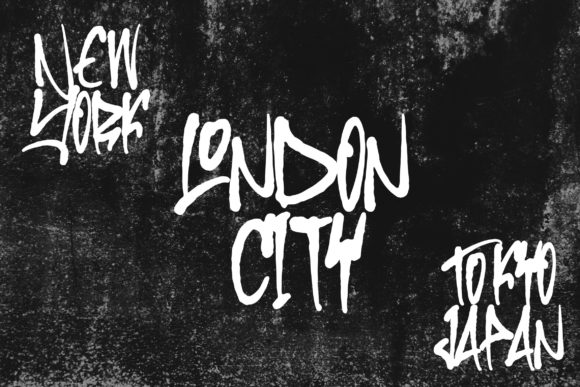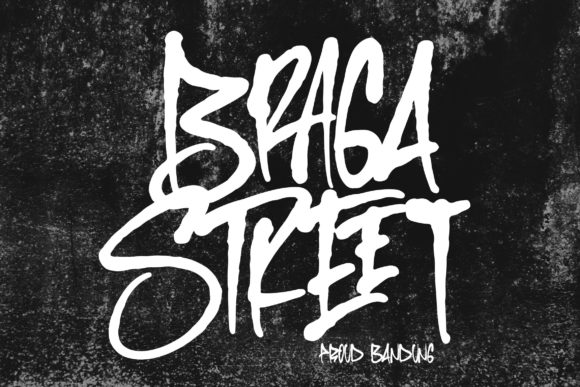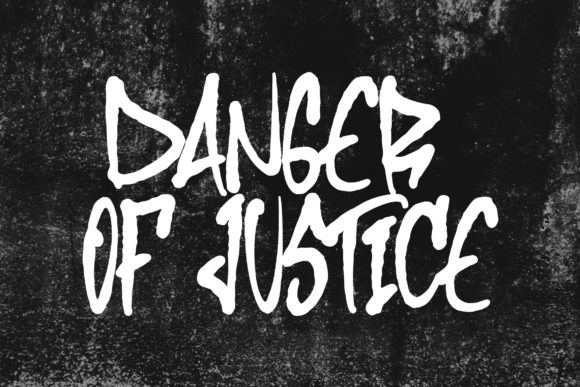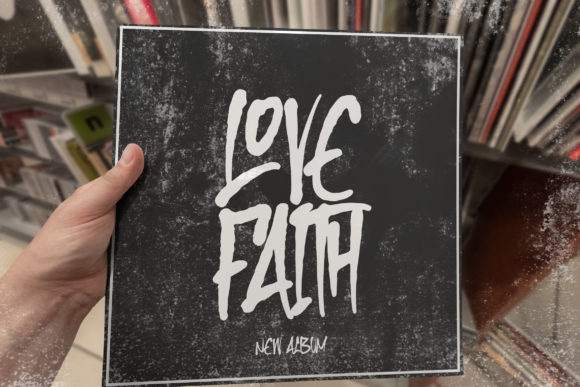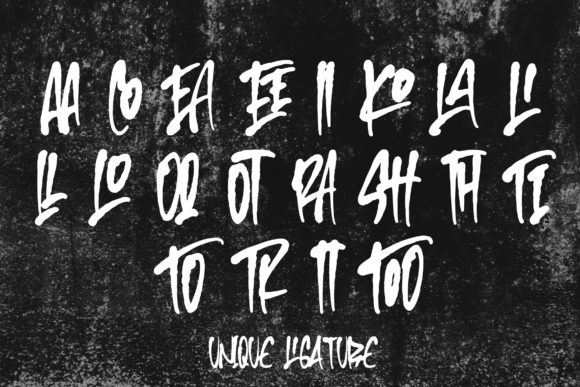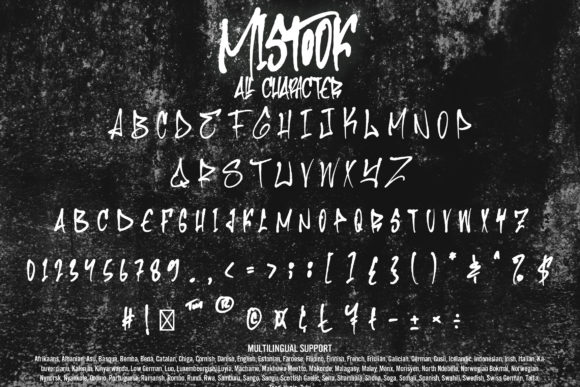
Introduction to Mistook Font
Have you ever been stuck on a design project, searching for that one perfect font to bring your creative vision to life? You know, that moment when everything else seems to be falling into place, but that one missing piece is holding you back? That’s exactly where the Mistook Font comes in – a stylish and unique display font designed to elevate your designs and make them truly stand out.
As a designer, you understand the importance of having a high-quality design resource that can breathe life into your creative project. The Mistook Font is perfect for designers who want to add a touch of sophistication and elegance to their work. Whether you’re creating a poster, thank you card, or logo, this font is sure to impress with its beautiful, transparent background and versatile design.
Key Features of Mistook Font
- High-quality design: Mistook Font is a beautifully crafted typeface perfect for creative projects.
- Transparent background: The font’s transparent background allows for seamless integration with any design element.
- Resolution-independent: Mistook Font is designed to be resolution-independent, making it suitable for use in high-resolution designs and printing applications.
- Unique characteristics: The font features a unique, handwritten style with subtle imperfections, adding a touch of personality to any creative project.
Honest Review: Mistook Font
I recently had the opportunity to work with the Mistook Font, and I’m excited to share my thoughts on this design resource.
- The high-quality design of the Mistook Font is truly impressive, with beautiful lines and shapes that make it perfect for creative projects.
- The transparent background option is a great feature, allowing for seamless integration with other design elements.
- The font’s limited character set may be a drawback for some designers, especially those working on complex creative projects.
- The font’s stylistic nuances may not be suitable for all design applications, requiring some trial and error to get the desired look.
Overall, I was impressed with the Mistook Font’s unique design and versatility. While it may have some limitations, I believe it’s a valuable resource for designers looking to add some creativity to their projects. With a little experimentation, I’m confident that the Mistook Font can be a valuable addition to any design toolkit.
Getting the Most Out of Mistook Font
For optimal results, use Mistook Font in conjunction with a clean and simple design. Experiment with different font sizes, colors, and backgrounds to find the perfect balance for your project.
Common Use Cases for Mistook Font
Mistook Font is ideal for creative projects such as branding, advertising, and graphic design. You can also use it for personal projects like invitations, posters, or social media graphics.